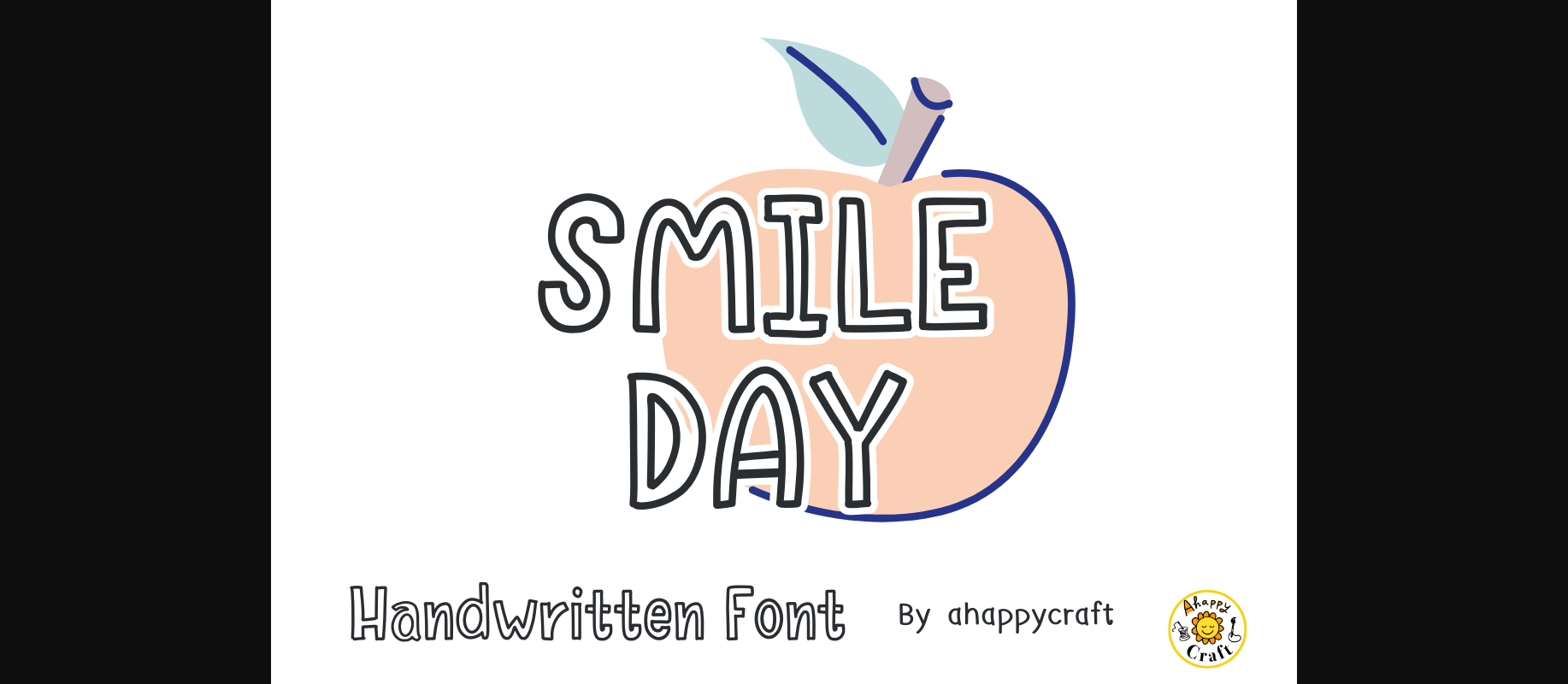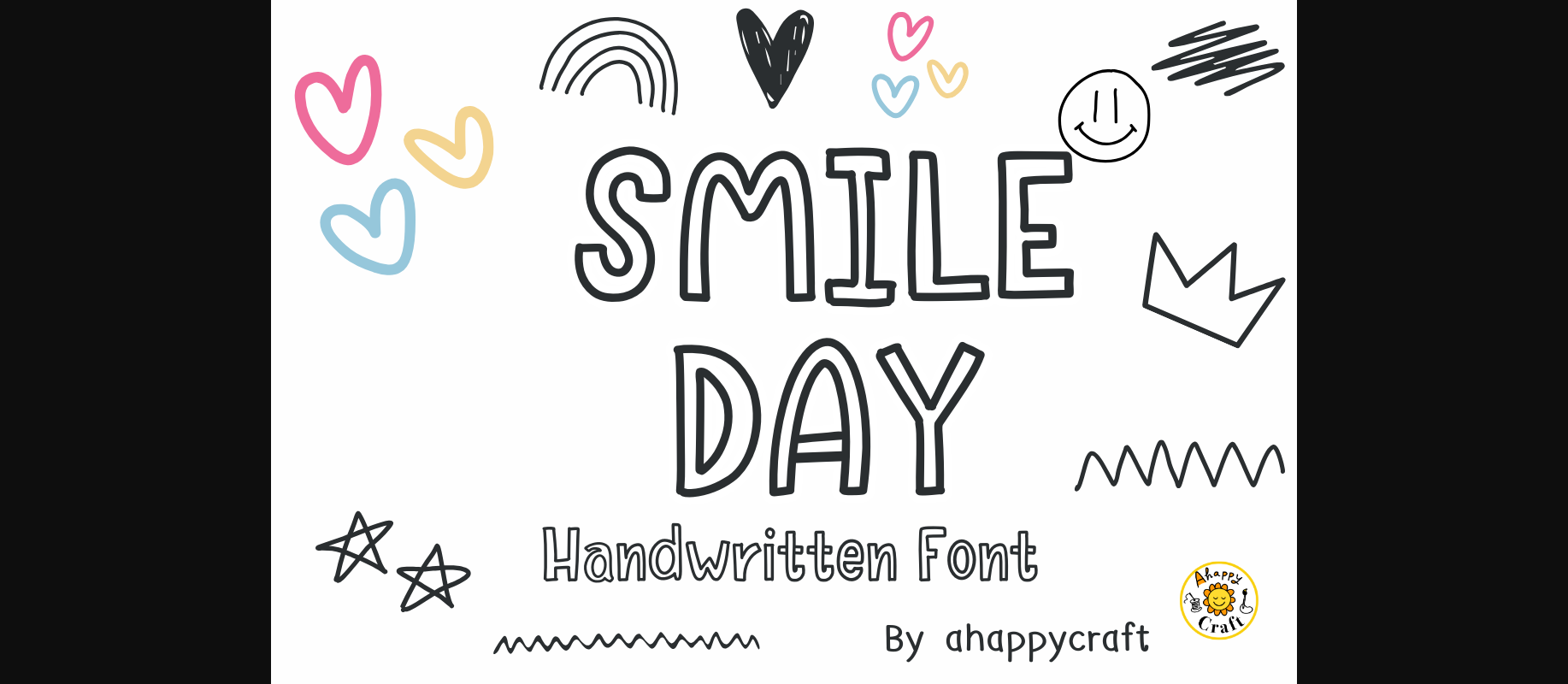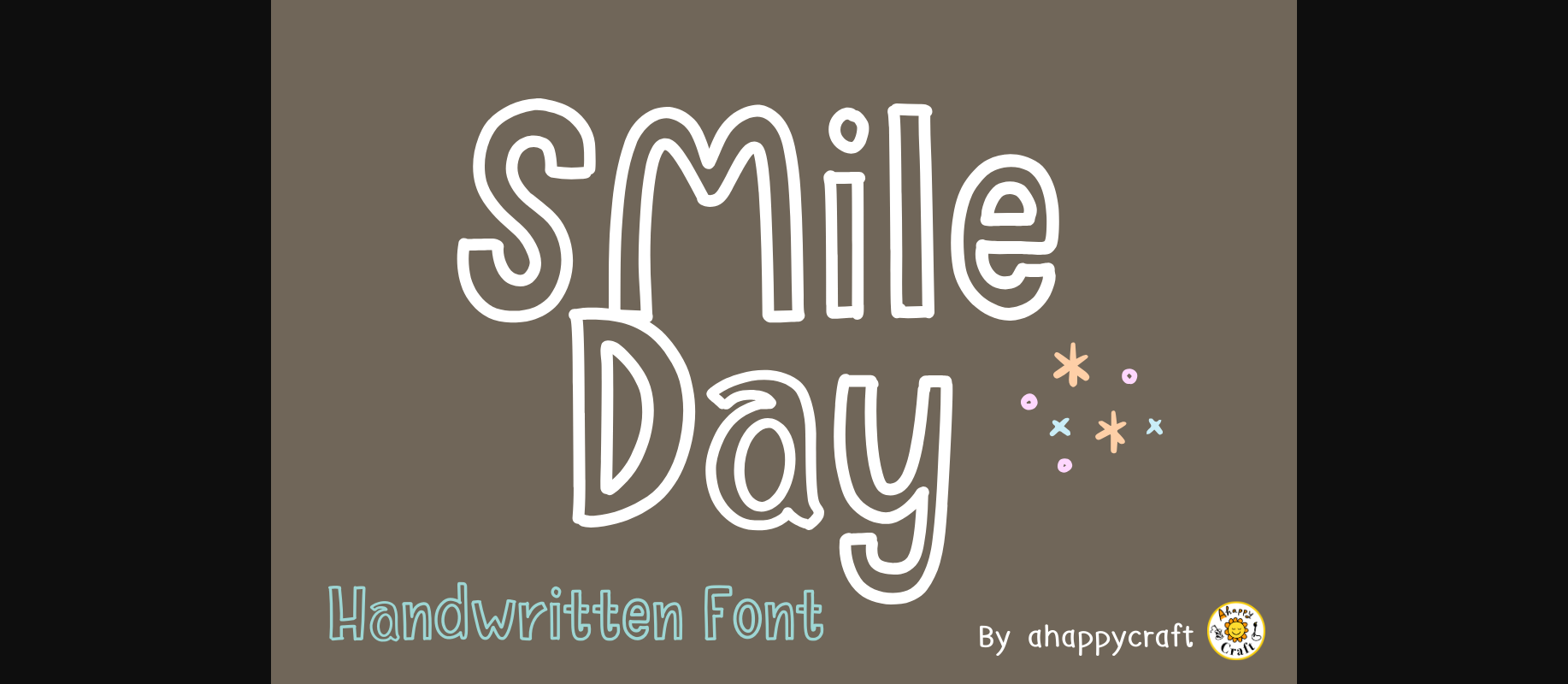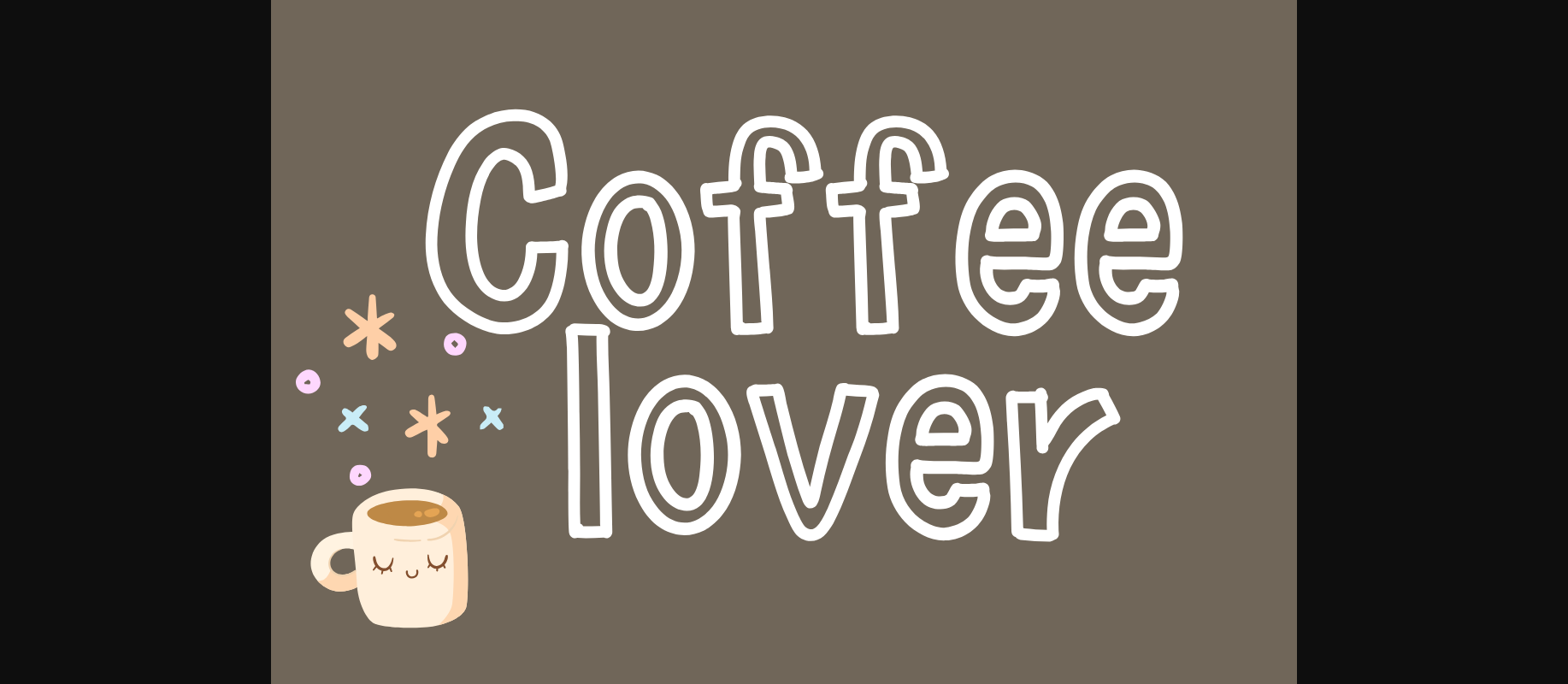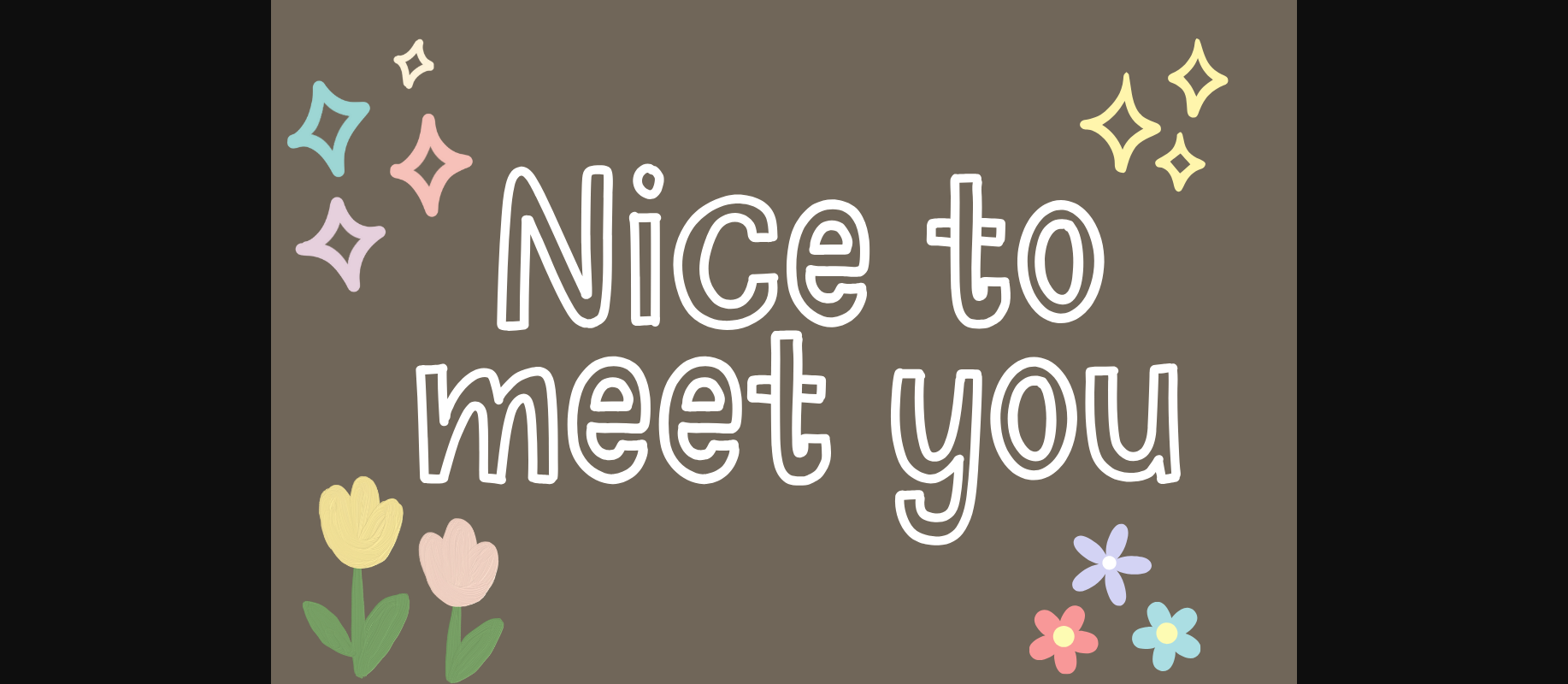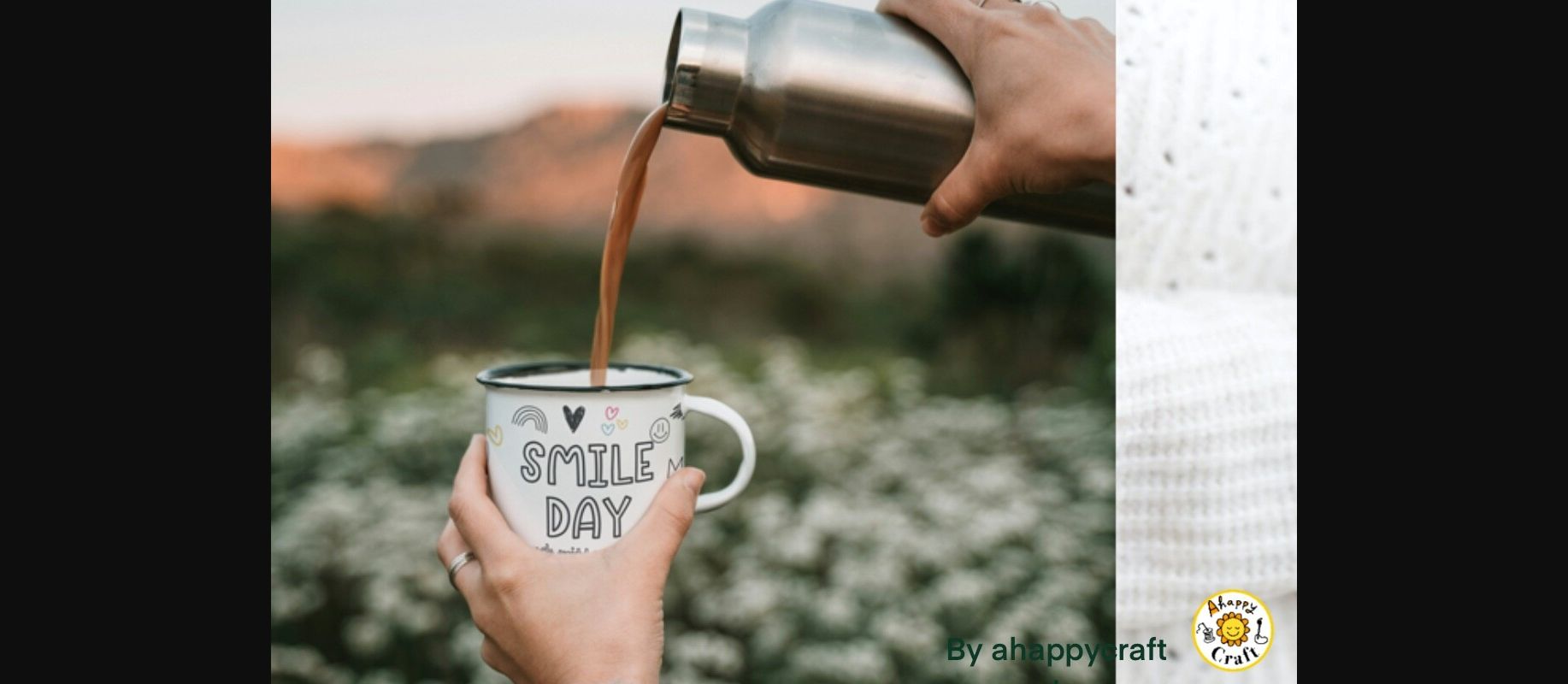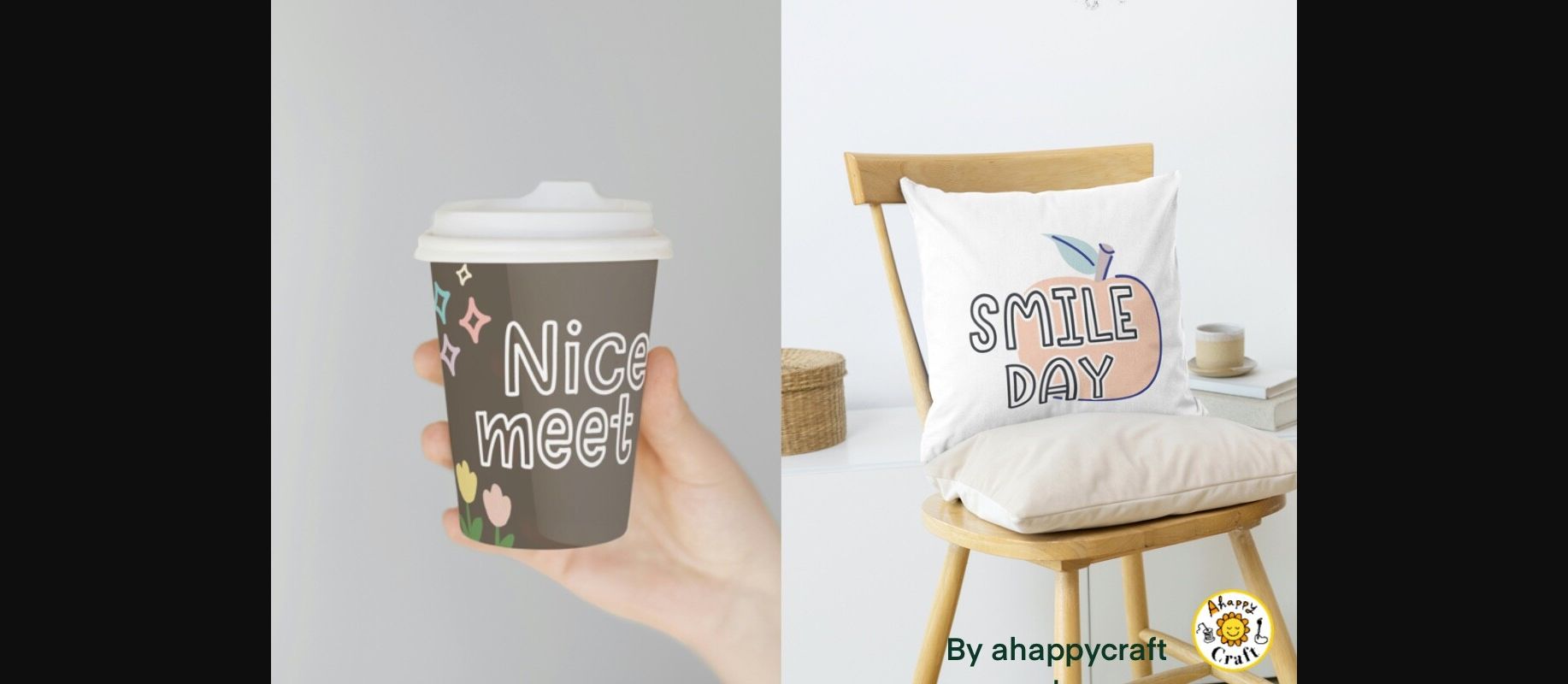
HomeDecorative FontsSmile Day Font Decorative Fonts Smile Day Font FacebookXPinterestWhatsApp 1 of 9 ... Smile Day Font Poster 2... Smile Day Font Poster 3... Smile Day Font Poster 4... Smile Day Font Poster 5... Smile Day Font Poster 6... Smile Day Font Poster 7... Smile Day Font Poster 8... Smile Day Font Poster 9... About Smile Day Font Smile Day is a sweet and friendly handwritten font. Its natural and unique style makes it incredibly fitting to a large pool of designs. The only limit is your imagination! DOWNLOAD NOW People also explored Stuard Font Unicorn Tall Font Ursula Script Font Paper Story Font Harelia Script Font July Summer Font Sensitype Font Dragon Font Quicken Font 328 0 TagsSmile Day Font Previous articleClaws FontNext articleMarble Pattern Font LEAVE A REPLY Cancel reply Comment: Please enter your comment! Name:* Please enter your name here Email:* You have entered an incorrect email address! Please enter your email address here Website: Save my name, email, and website in this browser for the next time I comment. Personal Use Free Loopina Personal Use Free Read more about this font Befindisa Personal Use Free Read more about this font Pridaem Cooper Personal Use Free Read more about this font Good Mood Personal Use Free Read more about this font BLOG Free Fonts Risk: Why Free Fonts Can Be Dangerous for Designers Free Fonts Risk: Why Free Fonts Can Be Dangerous for Designers Using free fonts is a common practice in web and graphic design. However, the... Elegant Wedding Invitation Fonts – Handwritten & Script Fonts The 10 Best Handwriting Fonts to Add Personality to Your Designs Best Fonts for T-Shirt Design – Top 2025 Picks